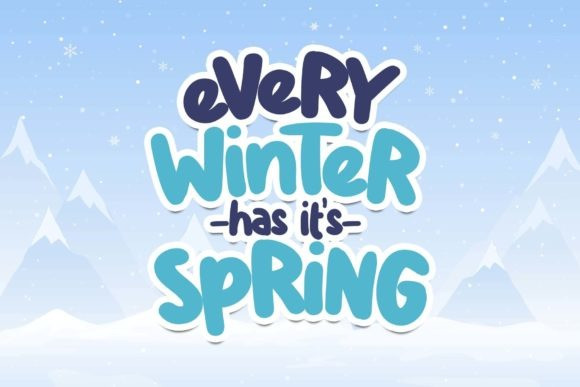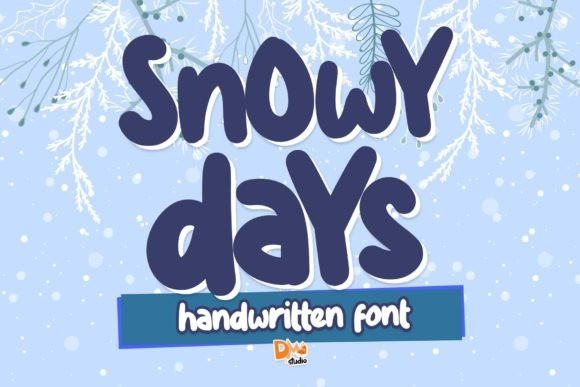
Snowy Days Font
Snowy Days Font is a simple, playful and cute display font. Add it confidently to your projects, and you will love the results. The only limit is your imagination!